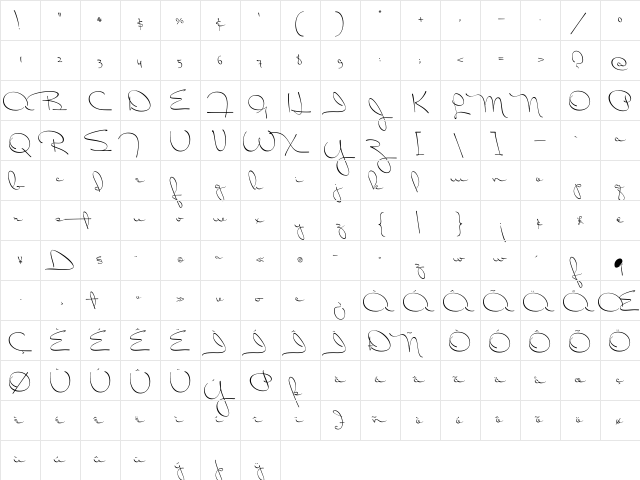
Dr Carbfred Regular Free Font
Dr Carbfred Regular
Design Context for Dr Carbfred
Dr Carbfred is a composed and adaptable typeface that performs quietly and consistently across a wide range of design contexts.